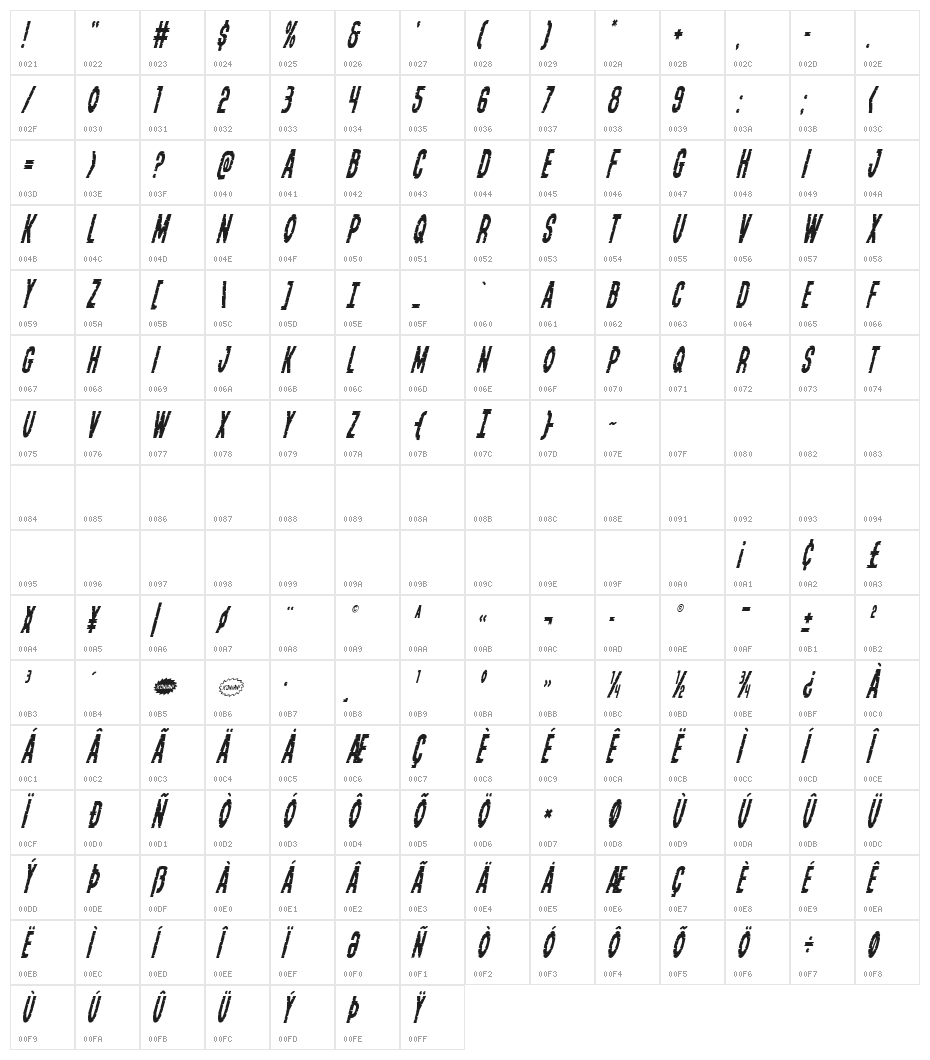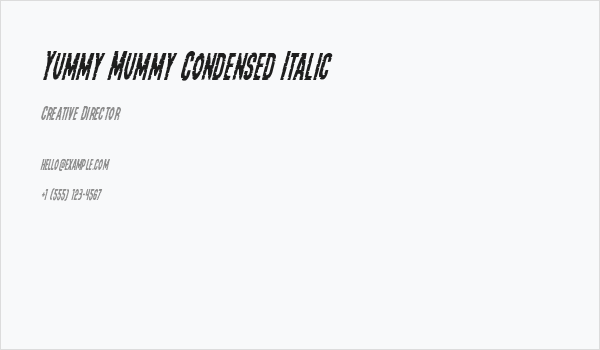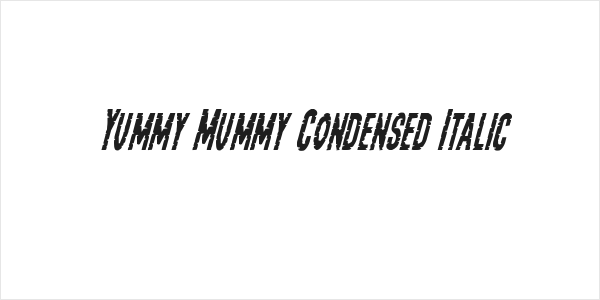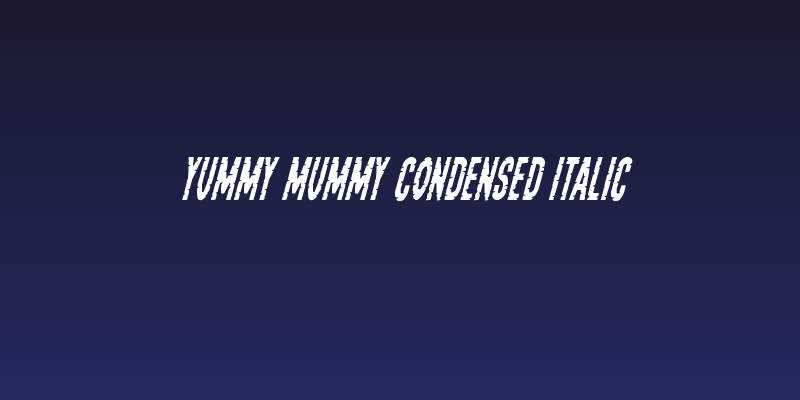
Yummy Mummy Condensed Italic Font
Yummy Mummy Condensed Italic Description
This font features a bold and dynamic style with a condensed and italicized form. The characters are heavily stylized with a distressed, textured appearance that adds a sense of movement and energy. The uppercase and lowercase letters maintain a consistent slant, enhancing the italic effect. The numbers and special characters follow the same design principles, ensuring uniformity across all glyphs. This font's unique look makes it stand out, ideal for projects that require a strong visual impact.
| Proposed Projects | Perfect for posters, album covers, branding, and any design needing a bold, eye-catching typeface. |